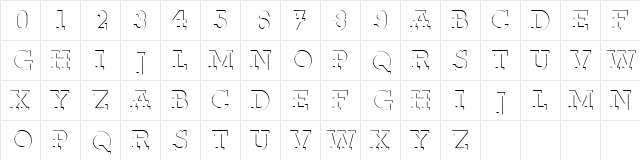
ROBERTO Regular
Design Context for ROBERTO Typeface
ROBERTO is a composed and adaptable typeface that performs quietly and consistently across a wide range of design contexts.